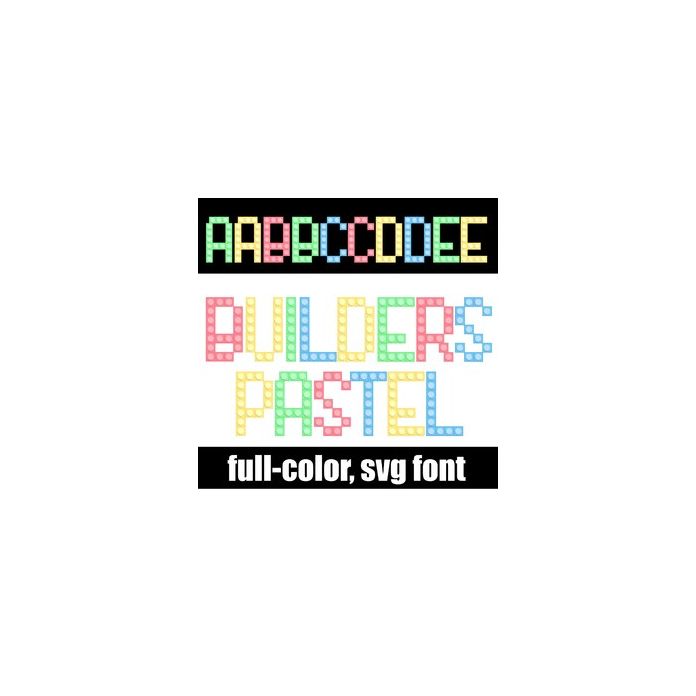
This full-color font features building block lettering in a pastel color palette. There is an alt version you can access through your system's character map that contains additional colors of all the letters.